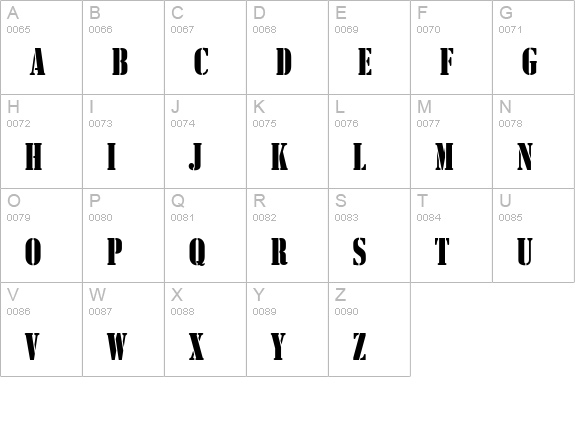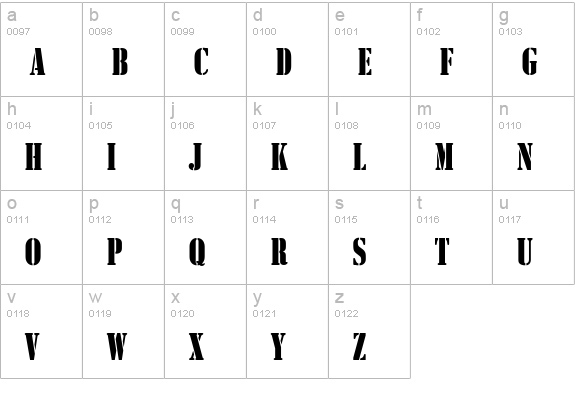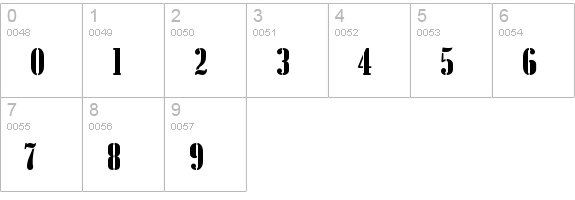
StencilComD Font Details
Introducing StencilComD, a sleek and modern typeface that effortlessly combines the classic stencil style with a contemporary twist. This versatile font is perfect for a wide range of design projects, from posters and logos to packaging and branding. With its bold, clean lines and sharp edges, StencilComD commands attention and makes a strong visual impact. What sets StencilComD apart is not only its striking design, but also the fact that it is completely free to download. Yes, you read that right - this high-quality font is available at no cost on FontsMarket.com. Whether you're a seasoned designer looking to add a fresh font to your collection or a newcomer eager to experiment with typography, StencilComD is the perfect choice. Don't miss out on this fantastic opportunity to enhance your designs with StencilComD. Download this remarkable font today and let your creativity soar!